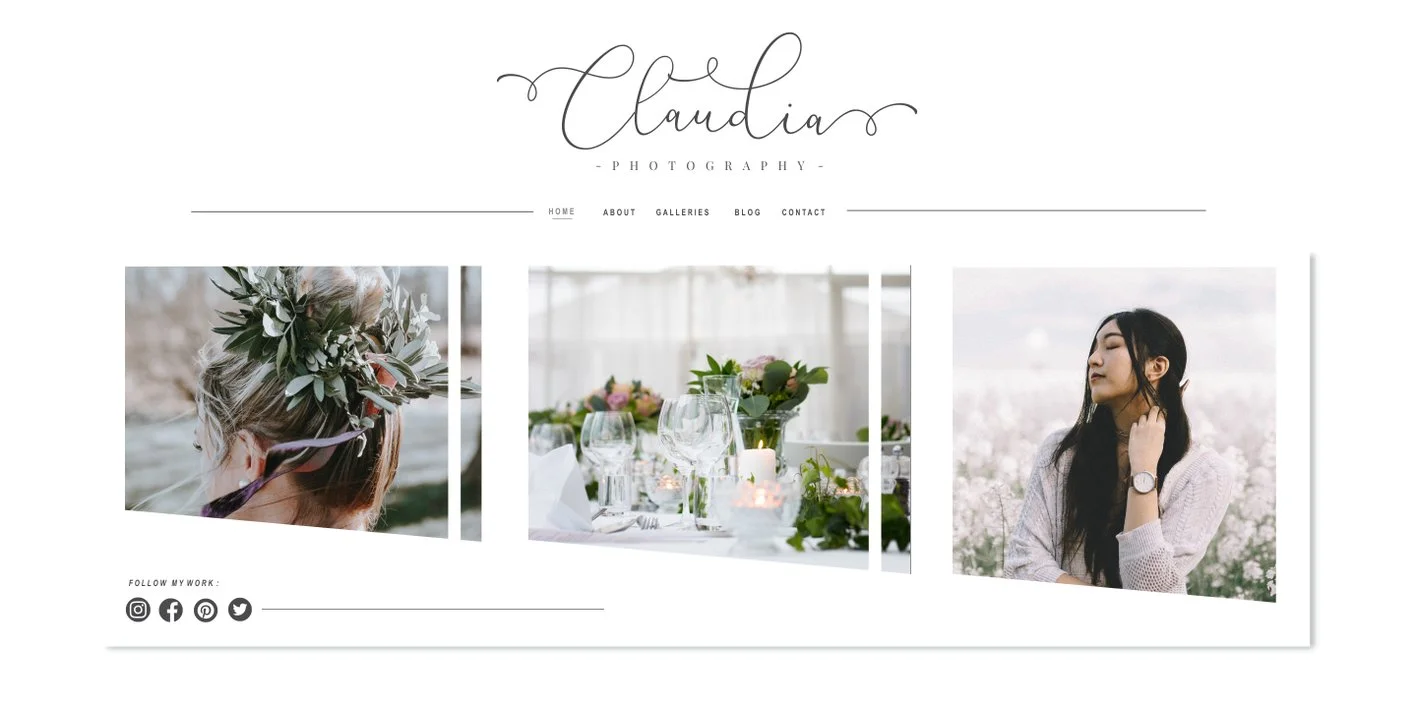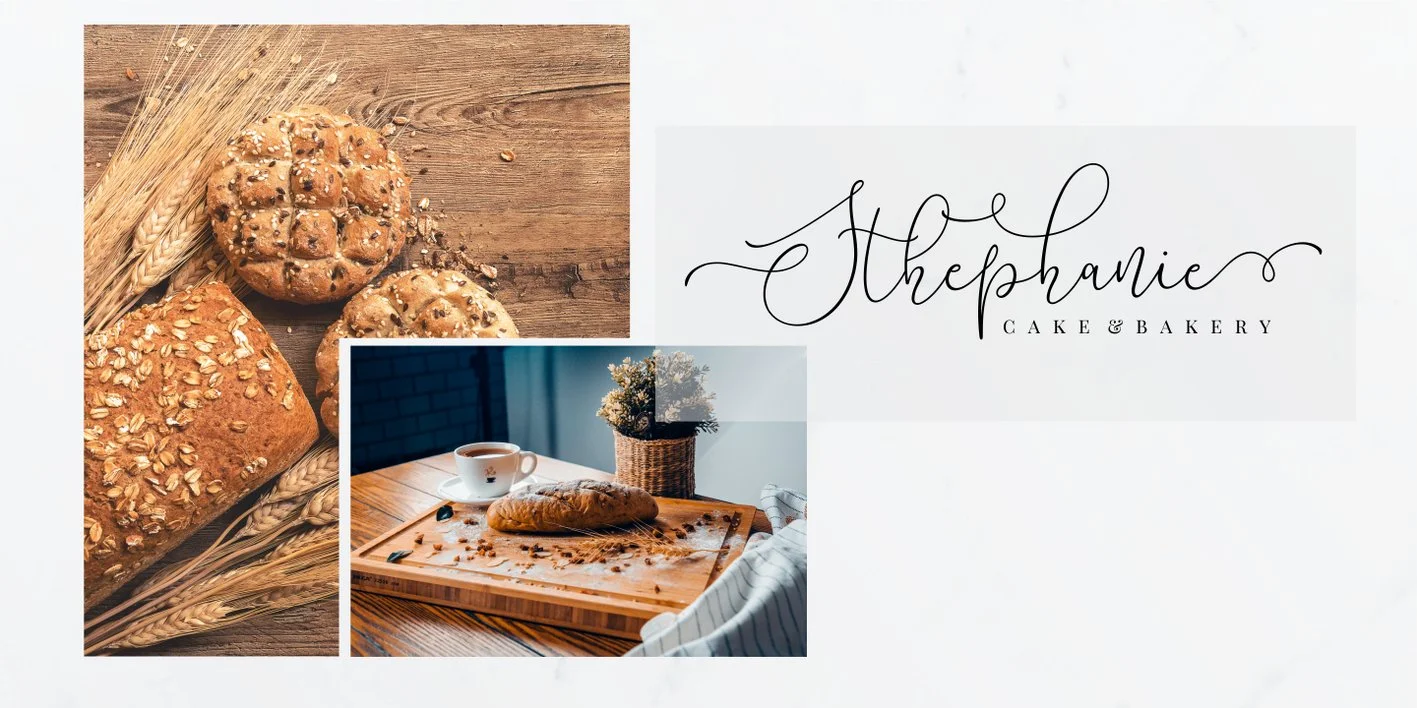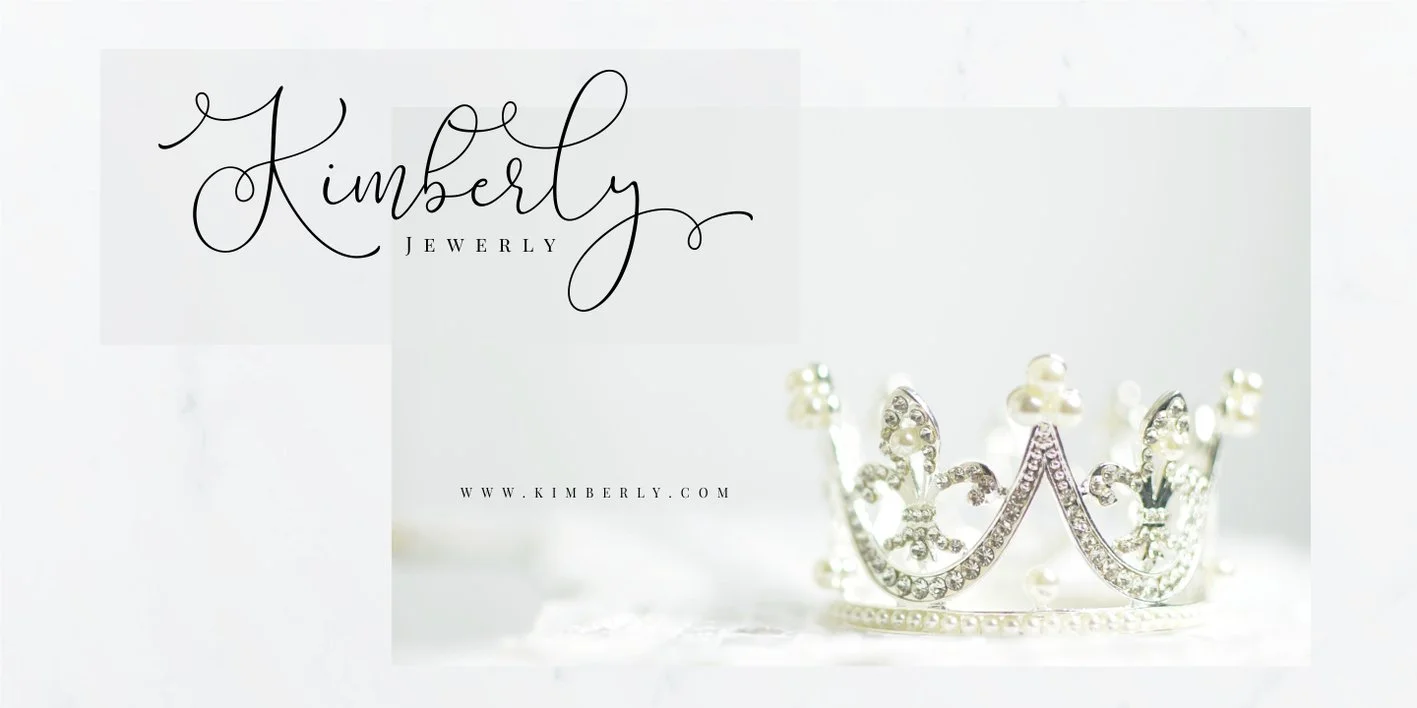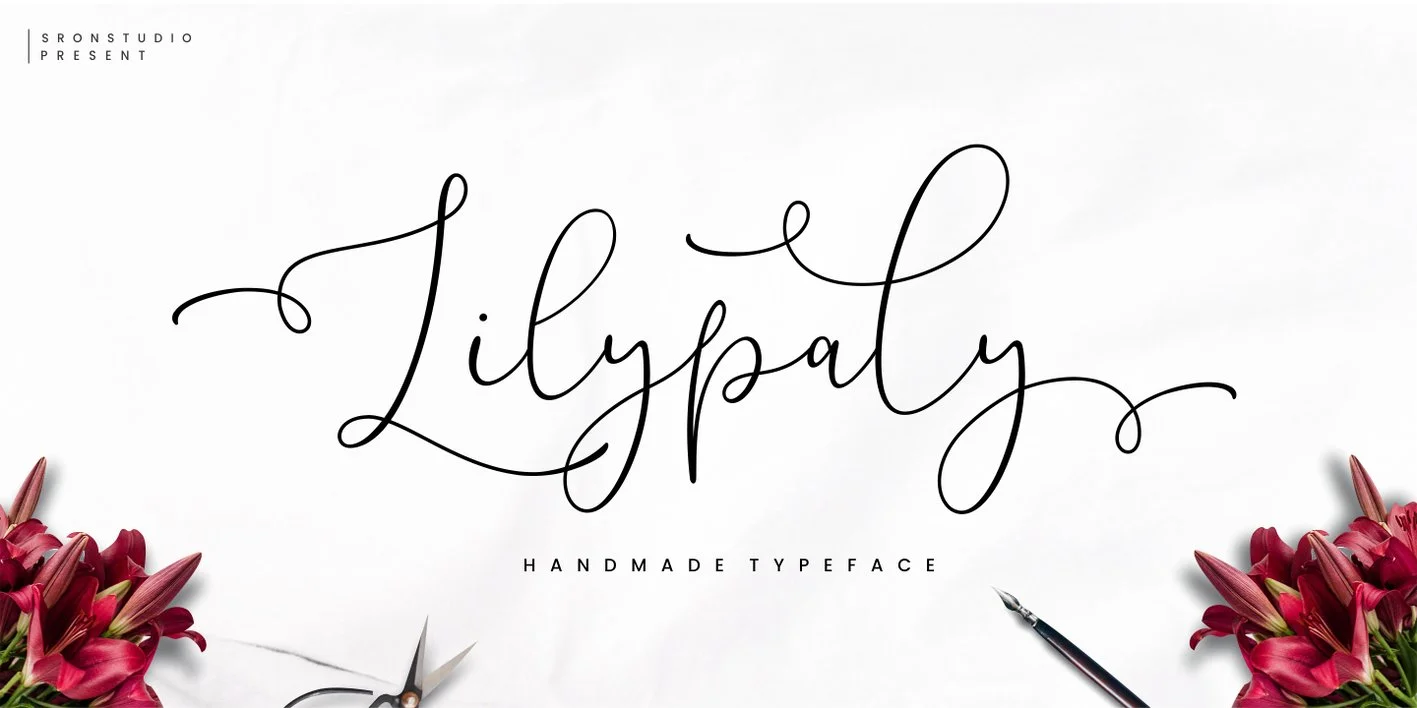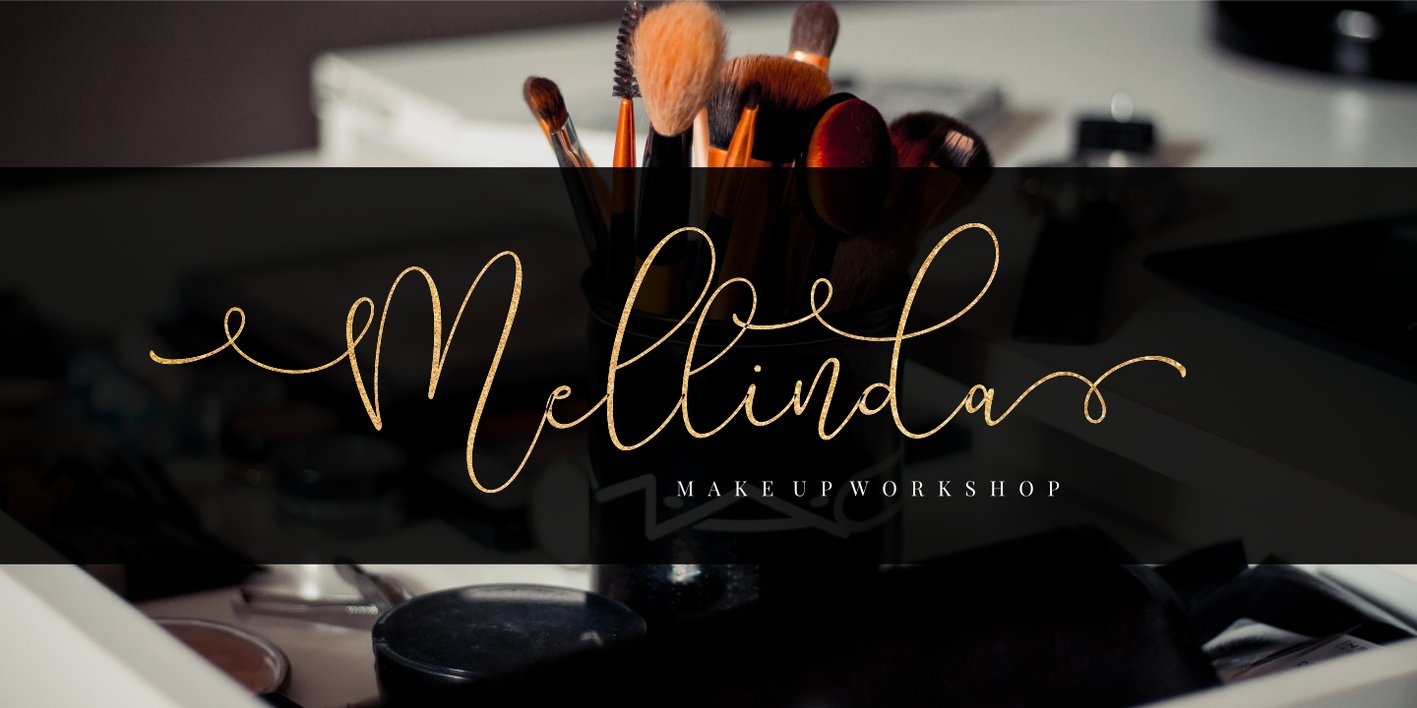
Lilypaly Font
When a design brief calls for both consistent type colour across continuous text and immediate visual impact, type choices matter — Lilypaly answers that brief. The typeface brings an elegant, calligraphic sensibility to a broad range of creative disciplines, with the kind of restraint that lets content lead that holds up whether the work is print-first or screen-first.
In practice, Lilypaly proves particularly effective for social media graphics, perfume labels, environmental graphics, feminine branding, high-end cosmetic packaging. Designers reaching for it find that the type decisions feel resolved rather than laboured — a useful quality when client timelines are tight.
The range of applications extends to annual reports, web design, product labels, beauty packaging. That breadth is deliberate: the proportions and spacing were stress-tested across a wide range of mock briefs before the typeface was finalised.
The consistent rhythm of Lilypaly across a full paragraph creates the kind of even grey value that makes extended reading comfortable, a detail that matters more in long-form content than its subtlety might suggest.
In-house creative teams at consumer brands find Lilypaly a reliable choice for projects that demand both personality and restraint. The design avoids the self-conscious quirkiness that dates quickly, settling instead for considered distinctiveness that holds up over time.